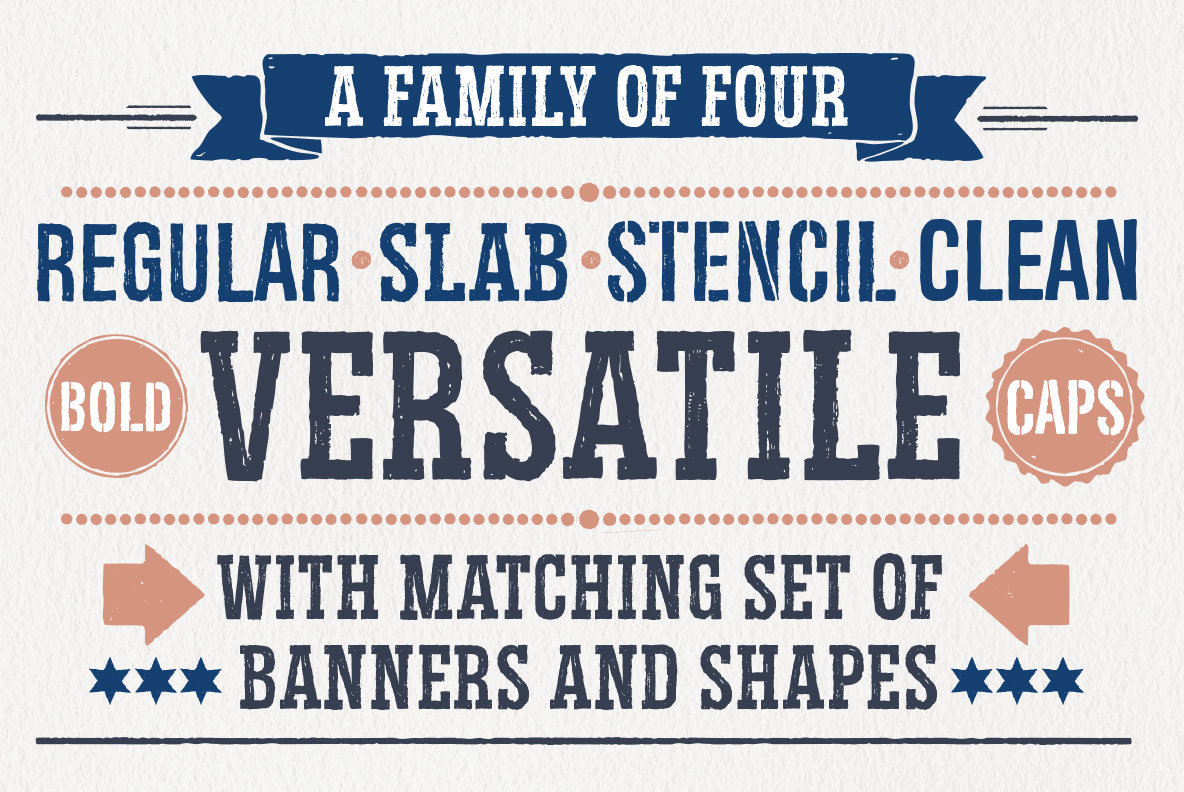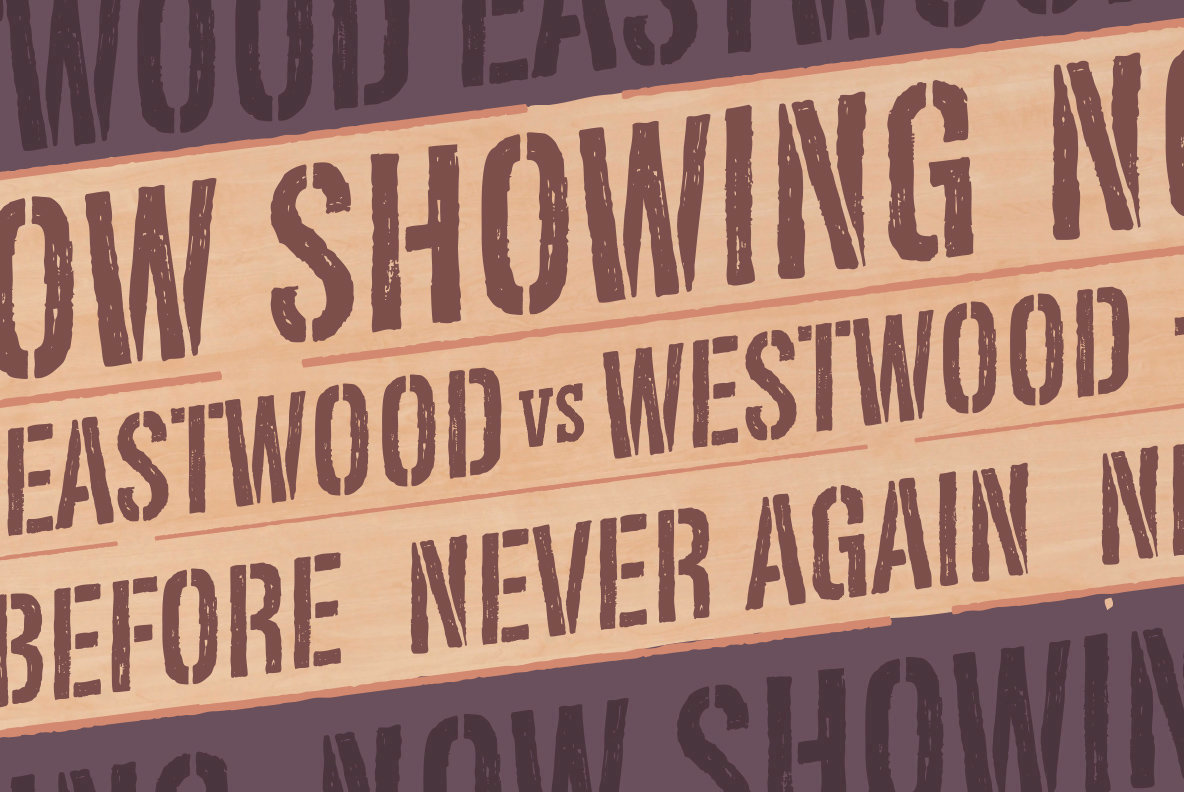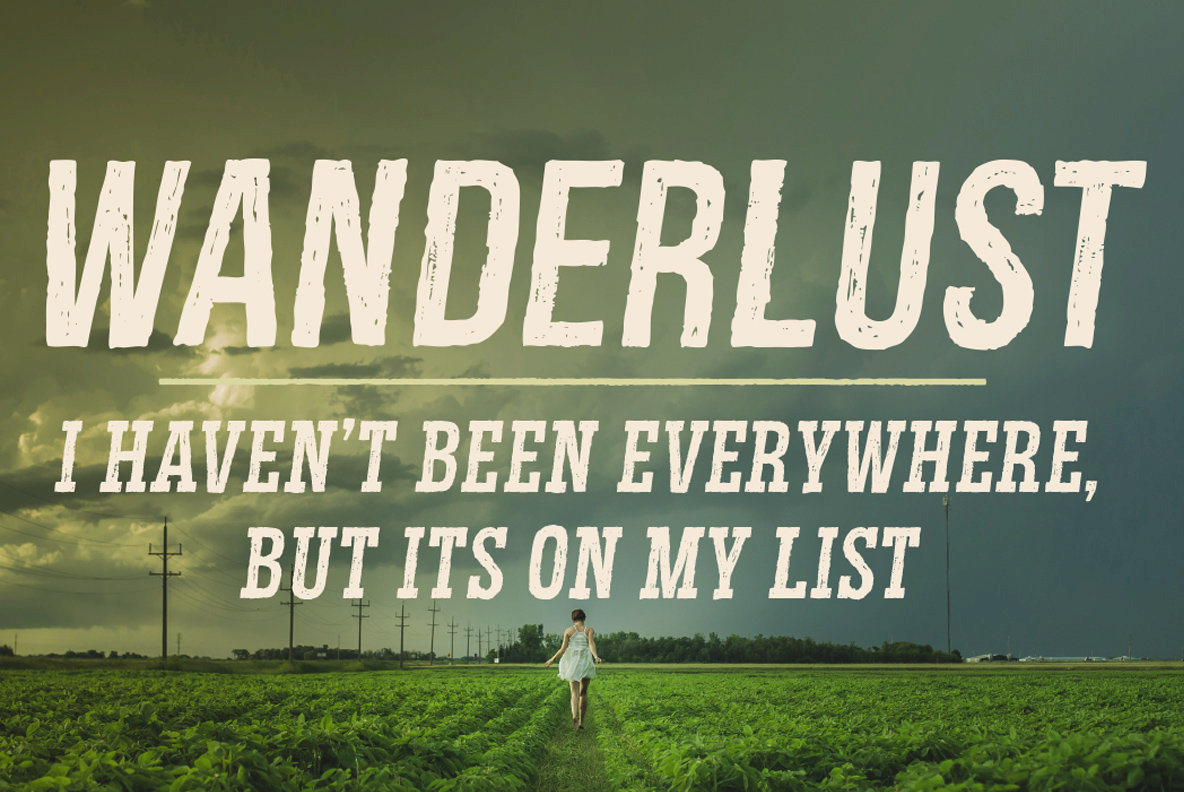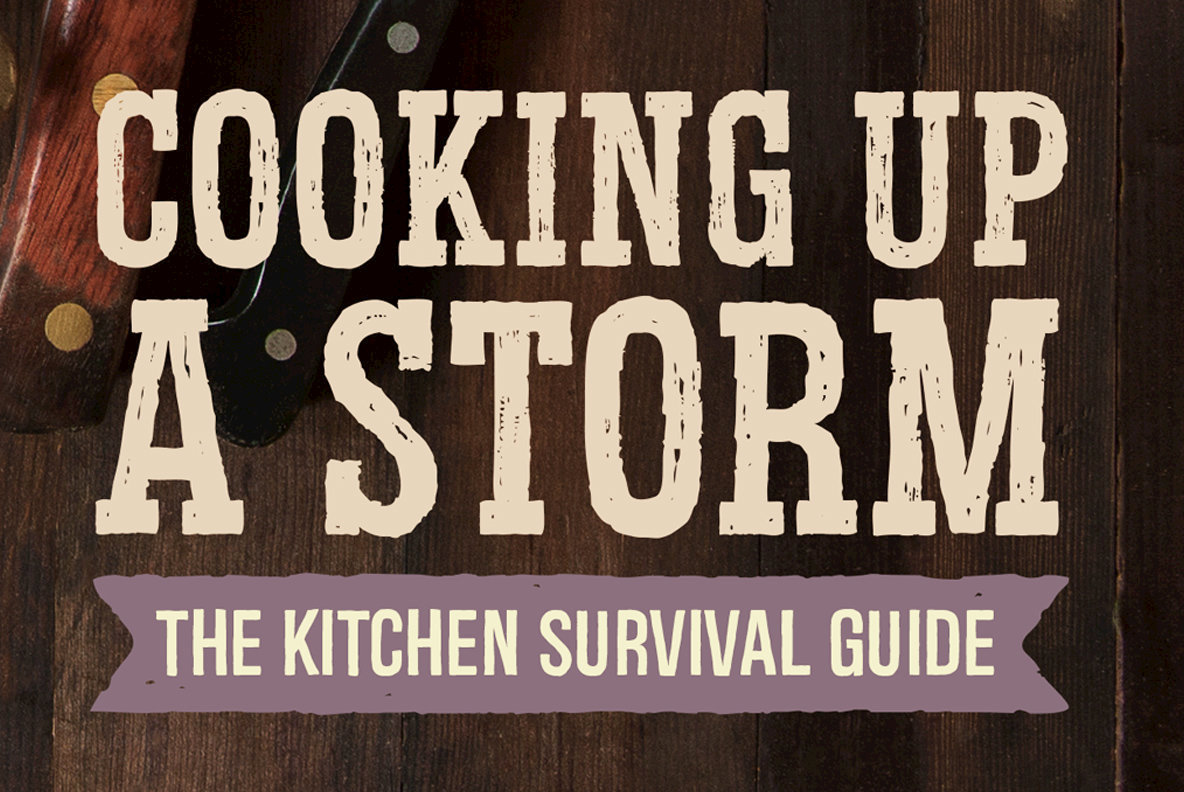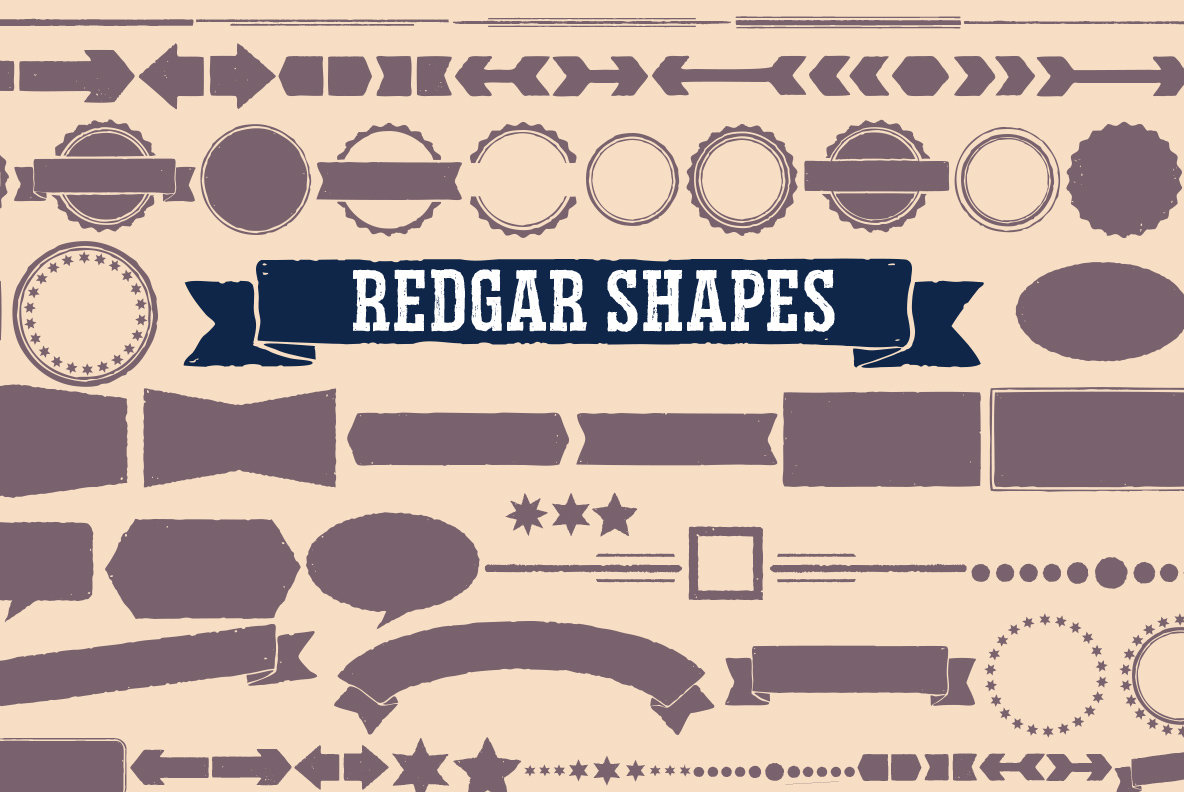
Redgar Font
Redgar Regular
Redgar Italic
Redgar Clean
Redgar Clean Italic
Redgar Shapes
Redgar Slab
Redgar Slab Italic
Redgar Stencil
Redgar Stencil Italic
Redgar offers a distinctive character with its weathered design, perfect for bold and evocative display uses. This versatile font family includes four unique styles: regular, slab, stencil, and clean. Each style brings its own touch of authenticity, making this typeface well-suited for projects that require a timeless and rugged aesthetic.Redgar: A Weathered Display Typeface
Diverse Styles and Elements